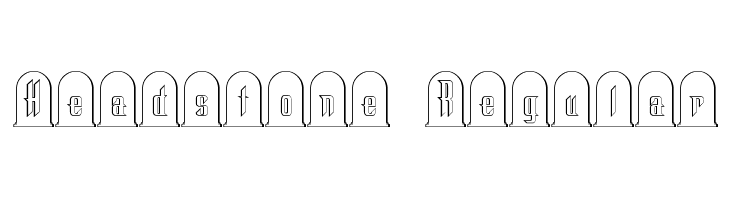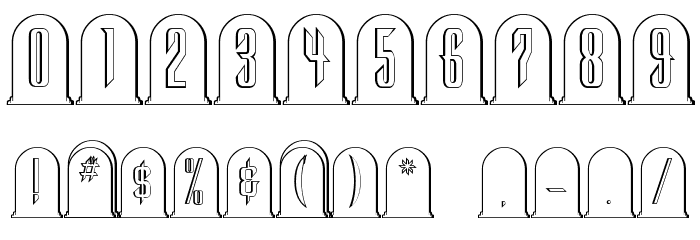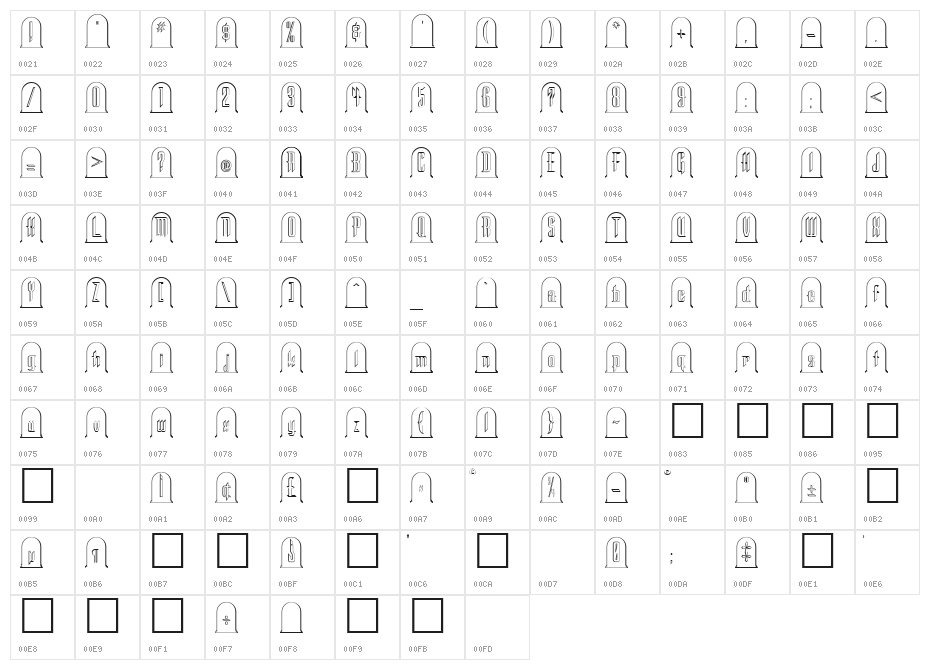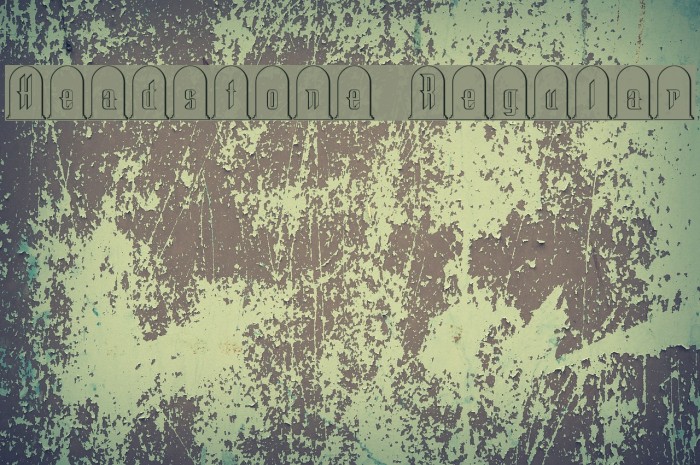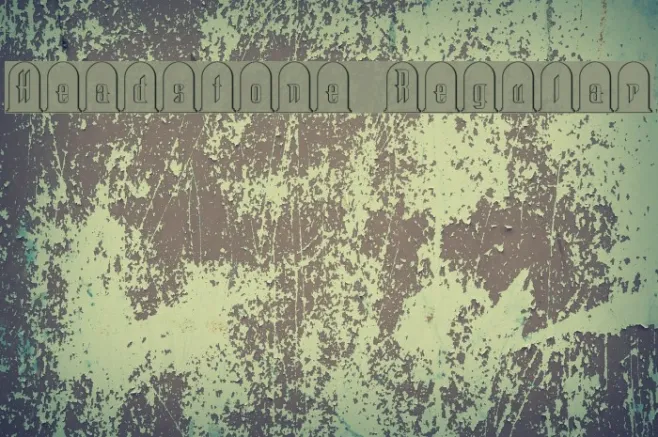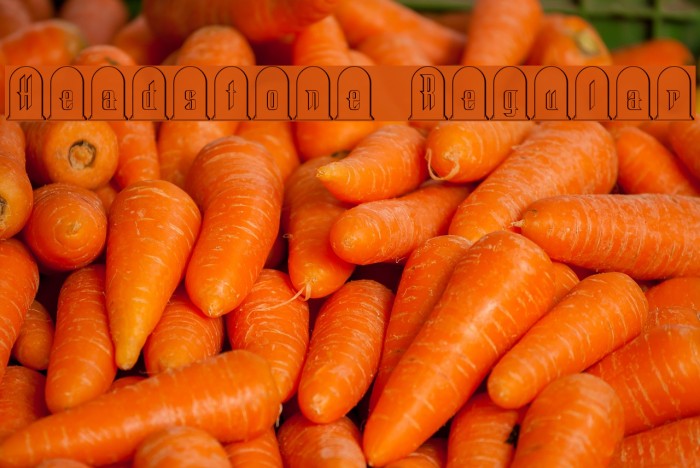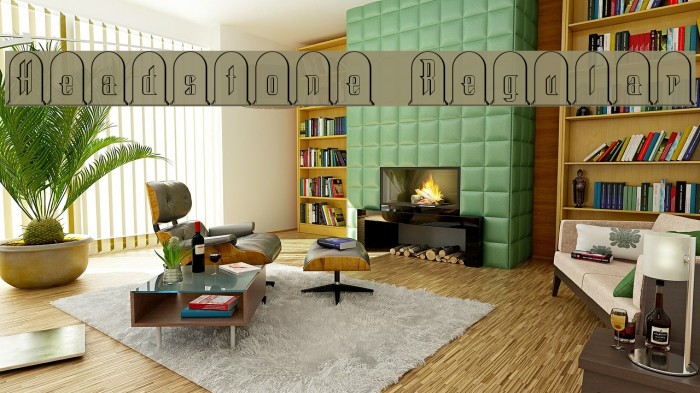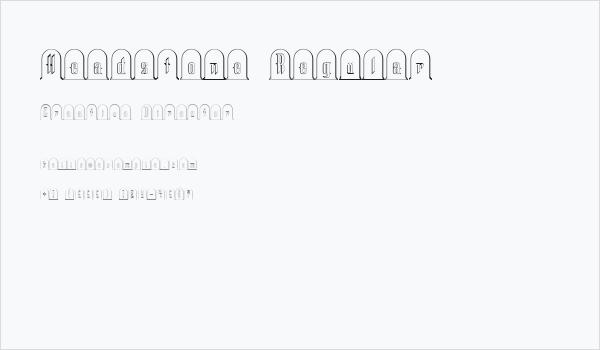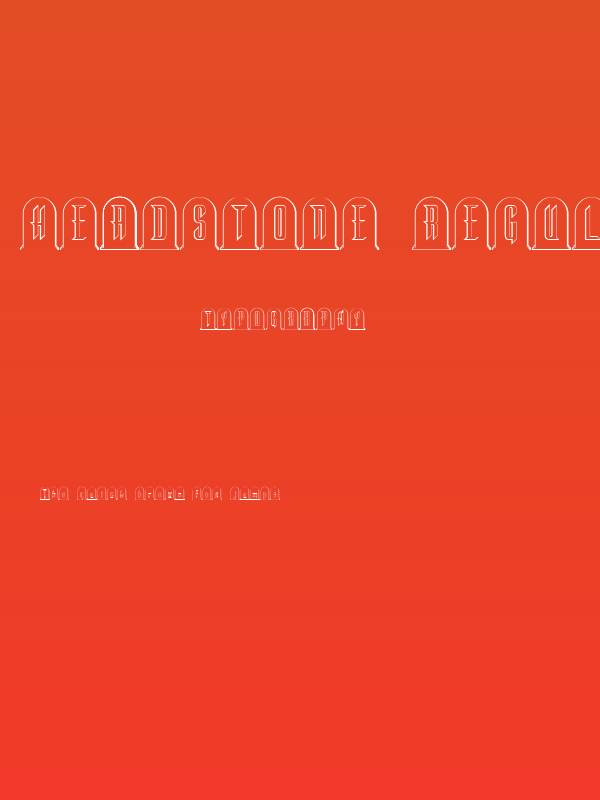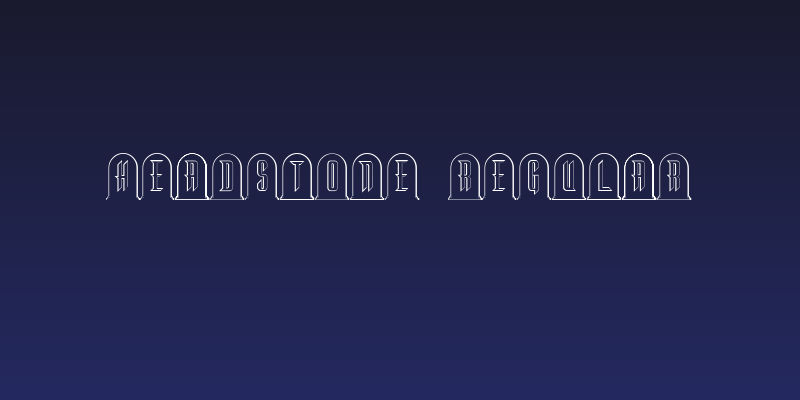
Headstone Regular Font
Headstone Regular Description
This font features a unique and decorative style, reminiscent of Gothic or medieval inscriptions. Each character is encased in a tombstone-like shape, adding a distinct and thematic element to the design. The uppercase letters exhibit sharp angles and intricate details, while the lowercase letters maintain a similar aesthetic with slightly softer curves. Numbers and special characters follow the same stylistic approach, ensuring consistency across all glyphs. The overall appearance is bold and eye-catching, making it suitable for thematic projects that require a dramatic and historical touch.
| Use Case | Headlines, Logos, Thematic Designs |
| Proposed Projects | Ideal for Halloween-themed designs, historical event posters, or any project requiring a dramatic and thematic typeface. |